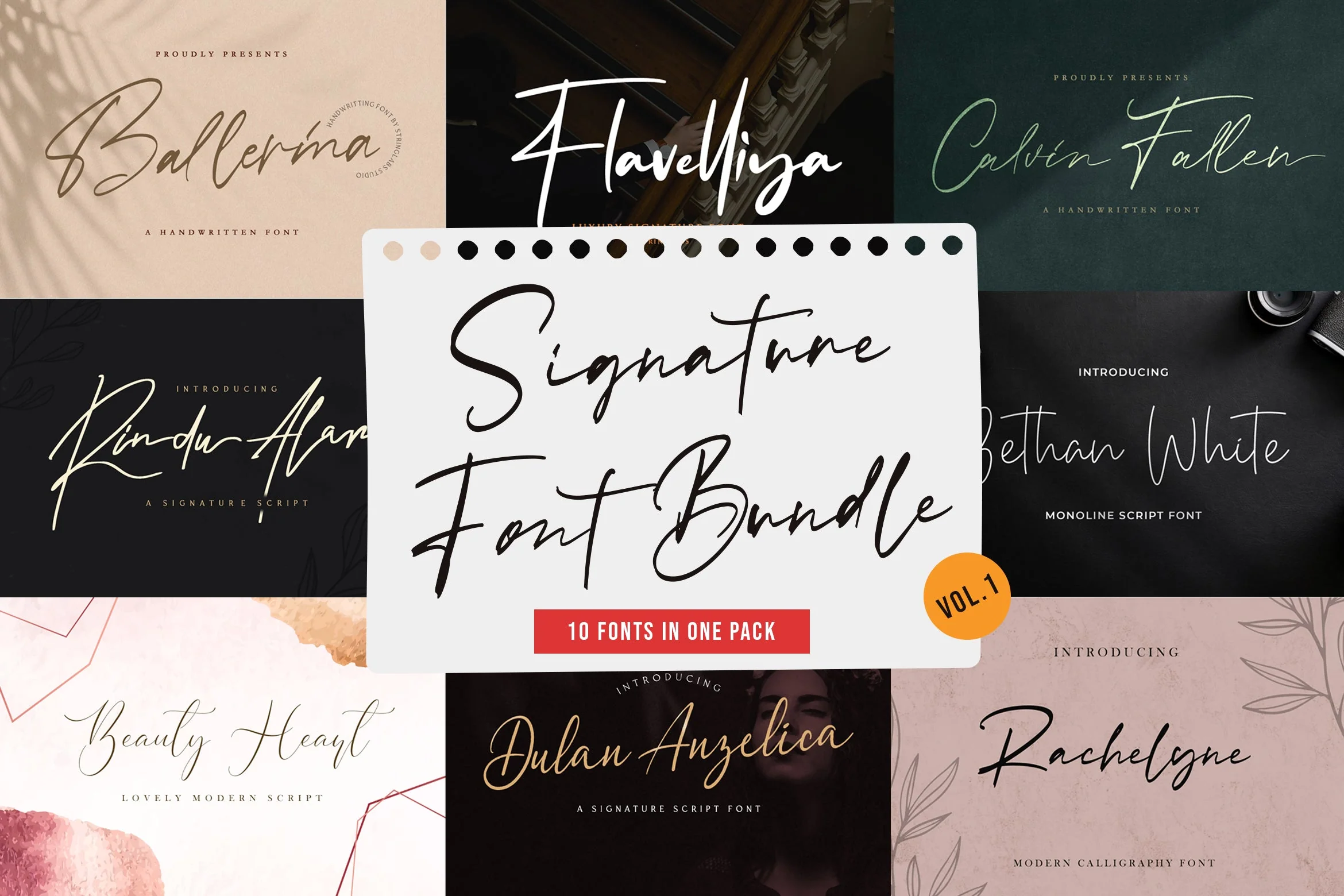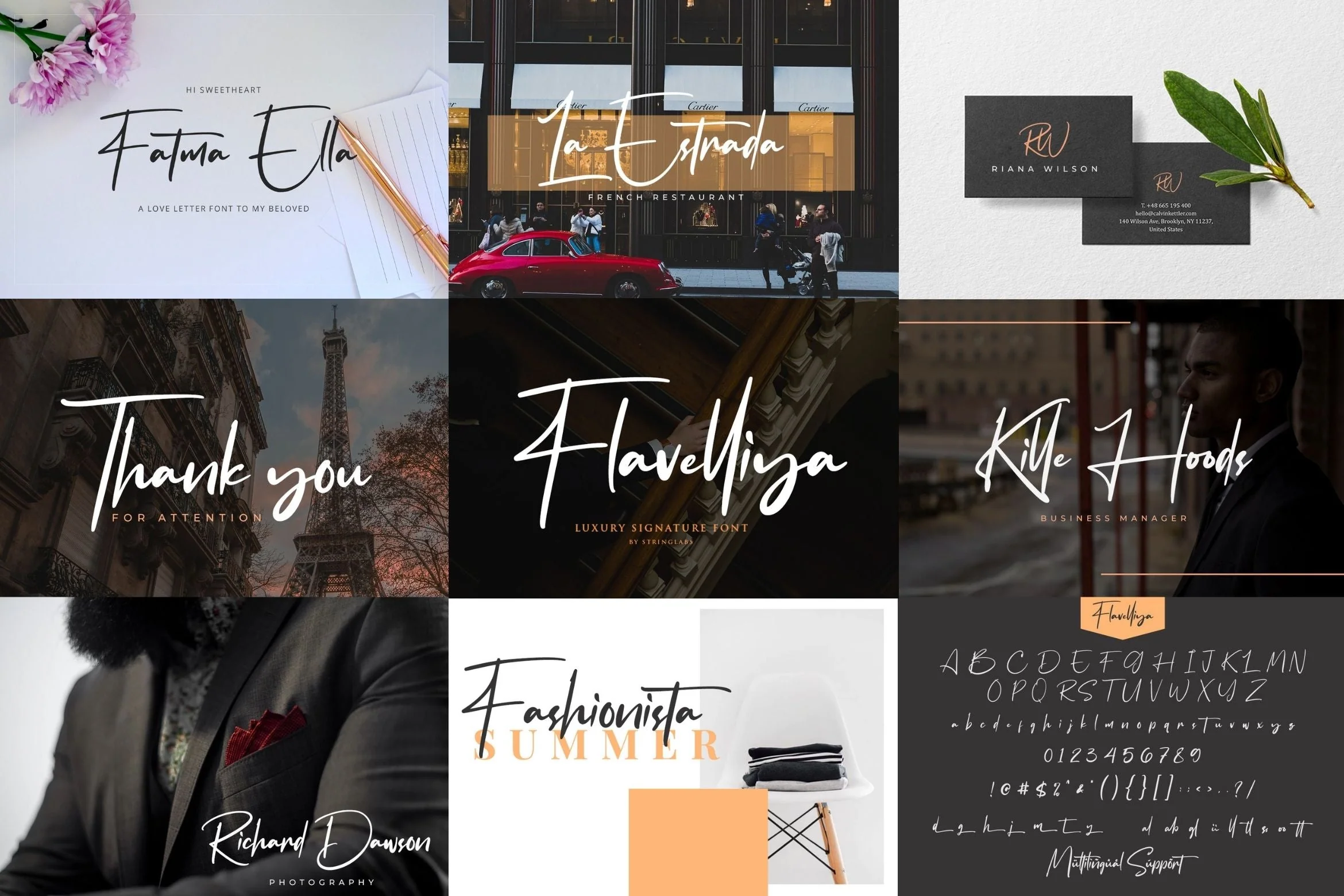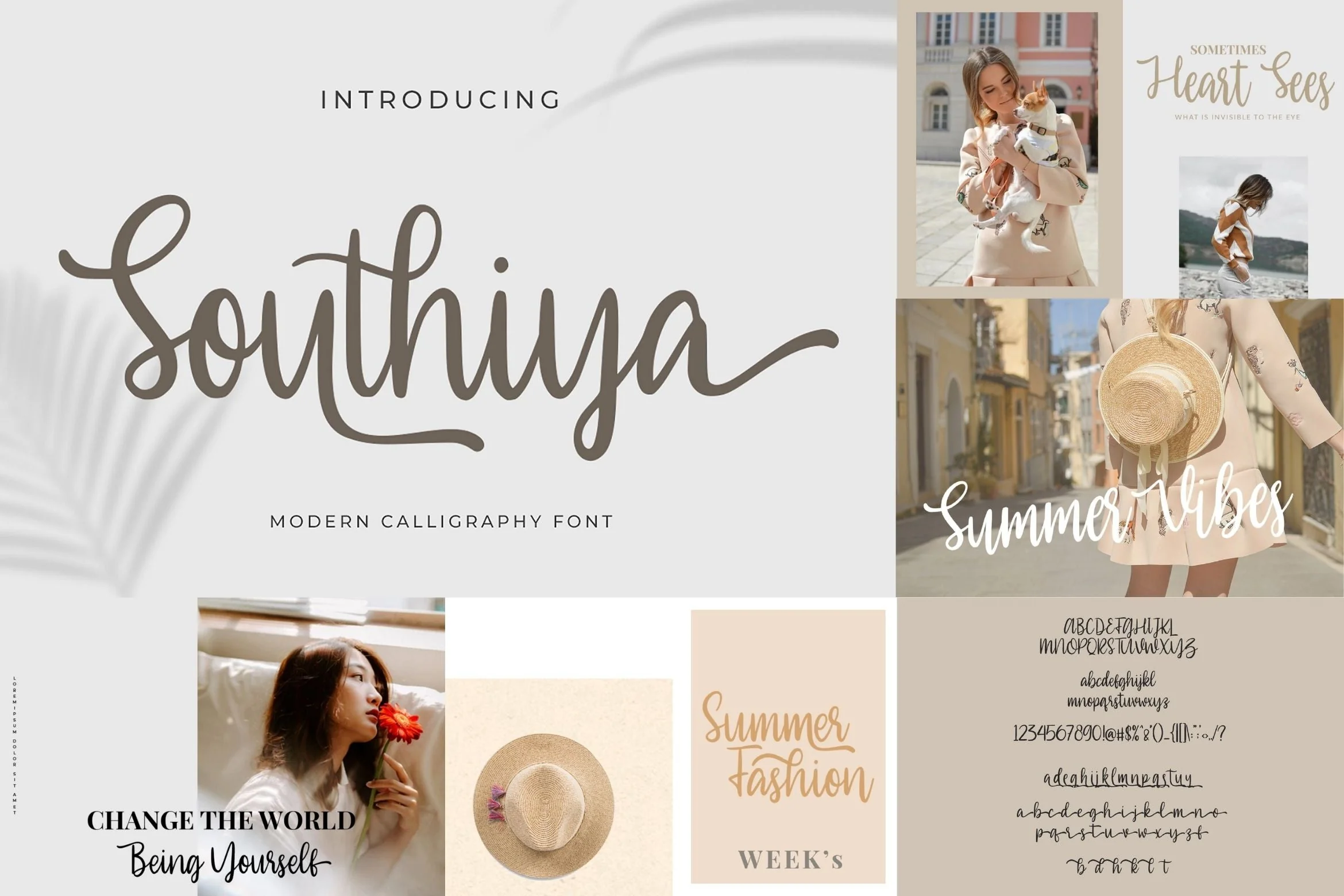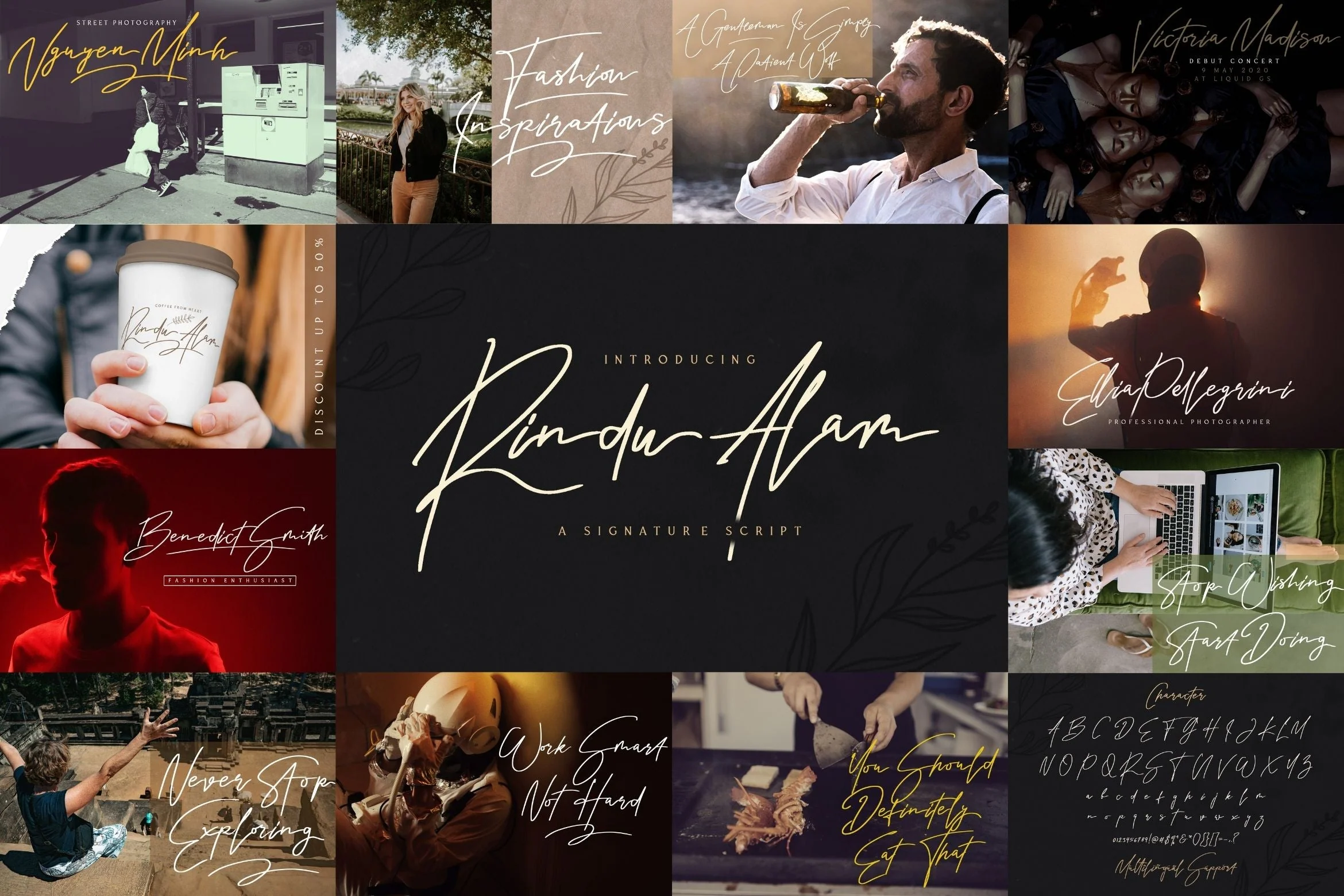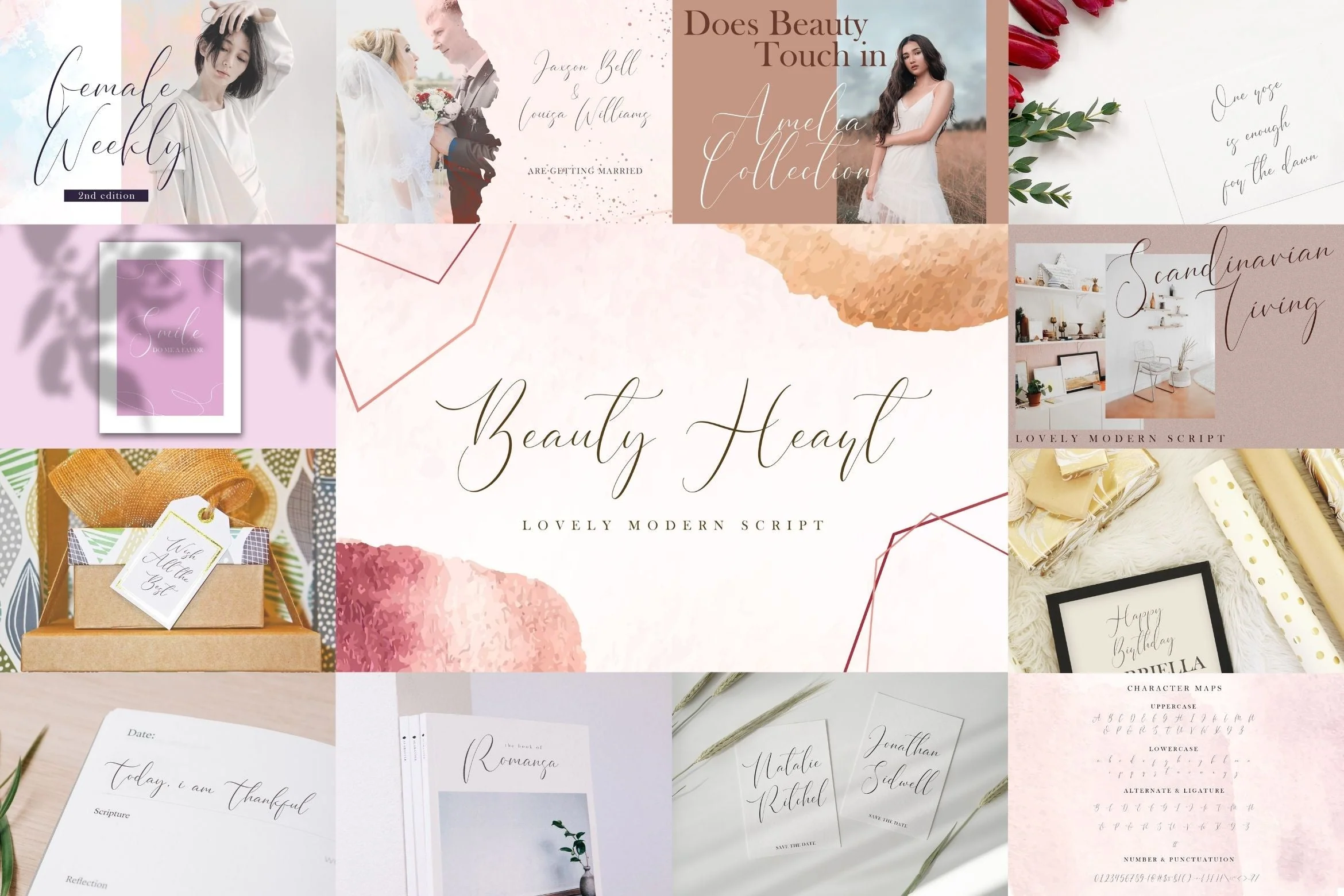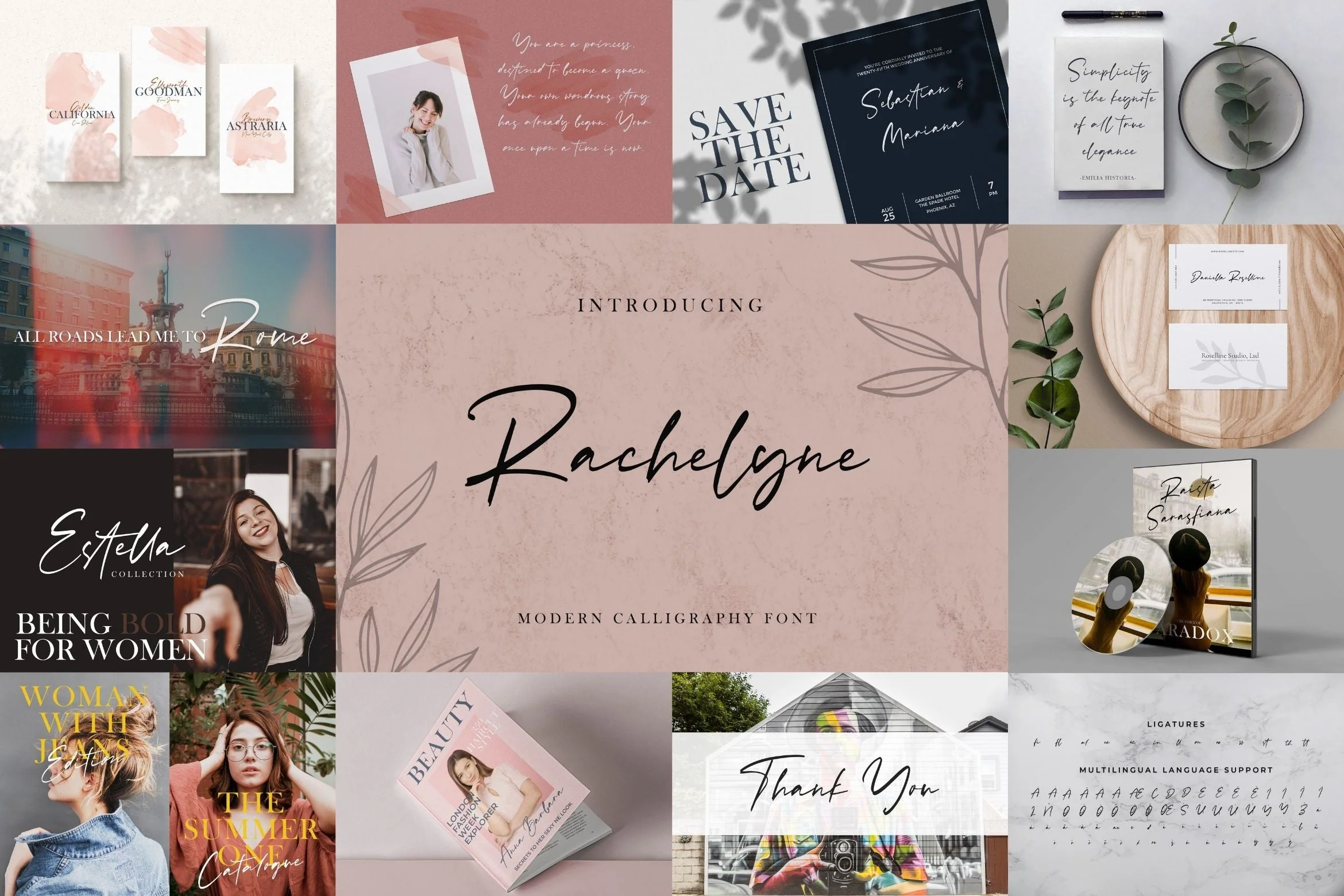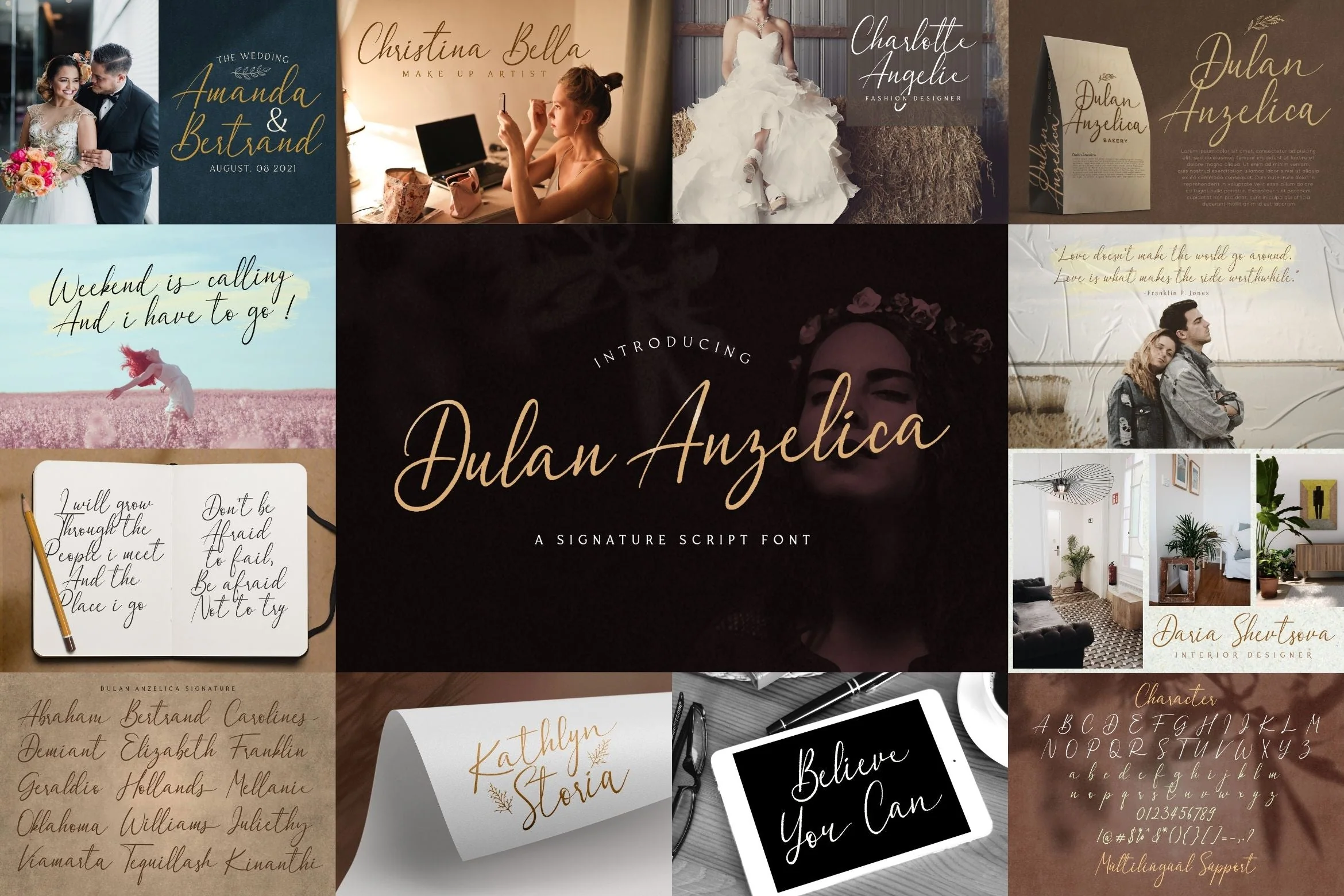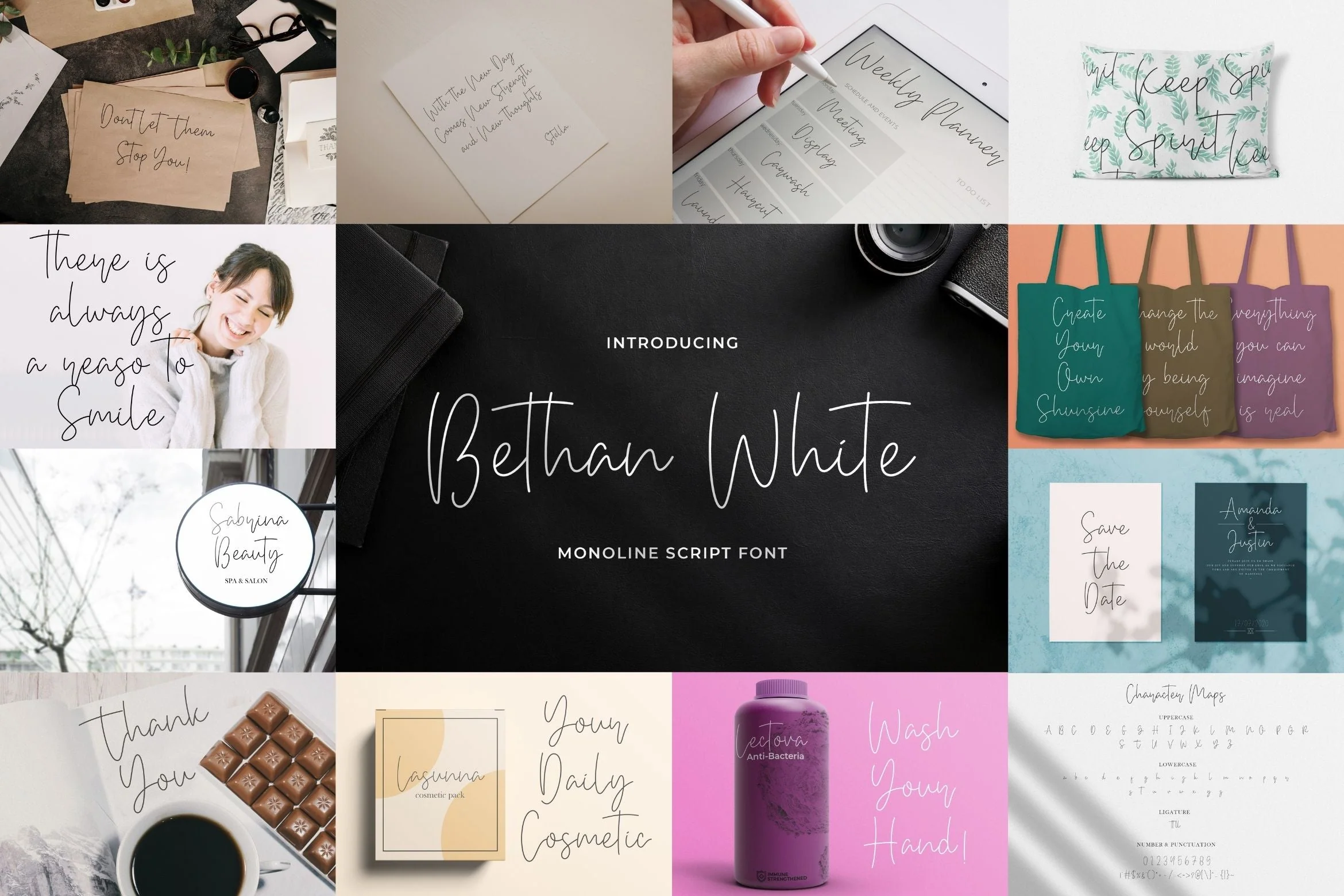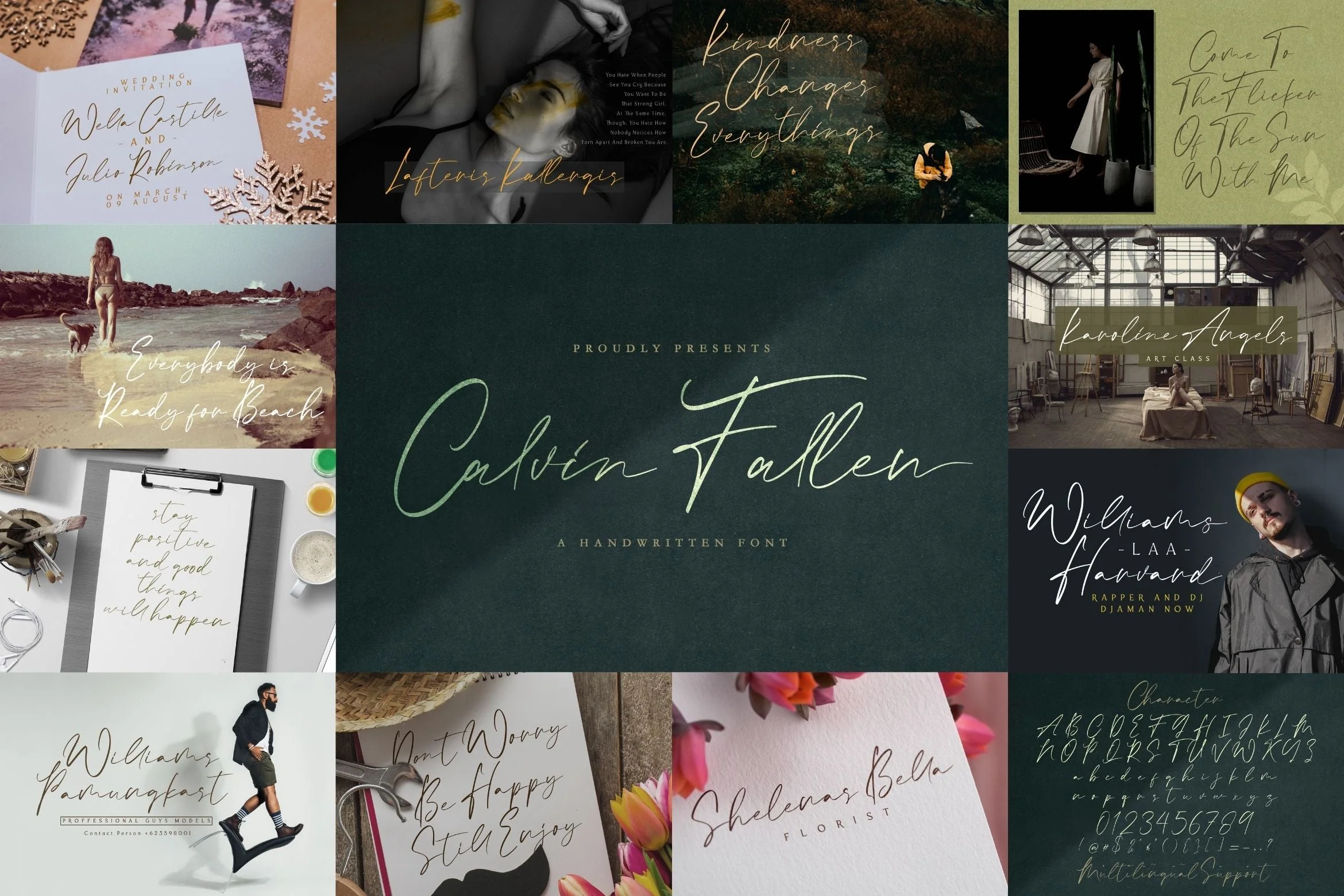
Signature Font Bundle Vol 1
Signature Font Bundle Vol 1 is a delicate, elegant and flowing signature font. This font bundle contains 10 high quality handwritting signature script font, it will look simply magical in a wide range of design projects, and also that will look particularly adept when used in logos, branding, packaging design, and much more. It has beautiful and well balanced characters and as a result, it matches a wide pool of designs. Add it to your most creative ideas and notice how it makes them come alive!
1. Ballerina
2. Mystique
3. Calvin Fallen
4. Bethan White
5. Dulan Anzelica
6. Rachelyne
7. Beauty Heart
8. Rindu Alam
9. Southiya
10. Flavellya